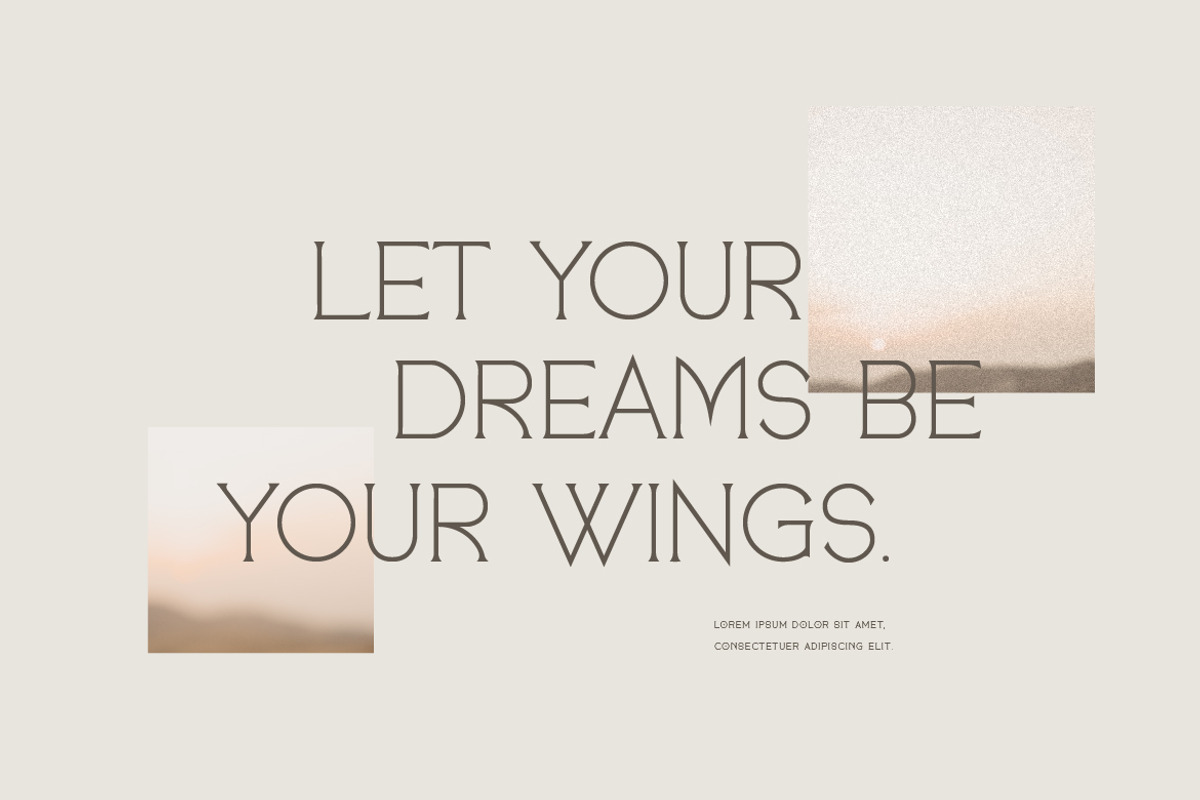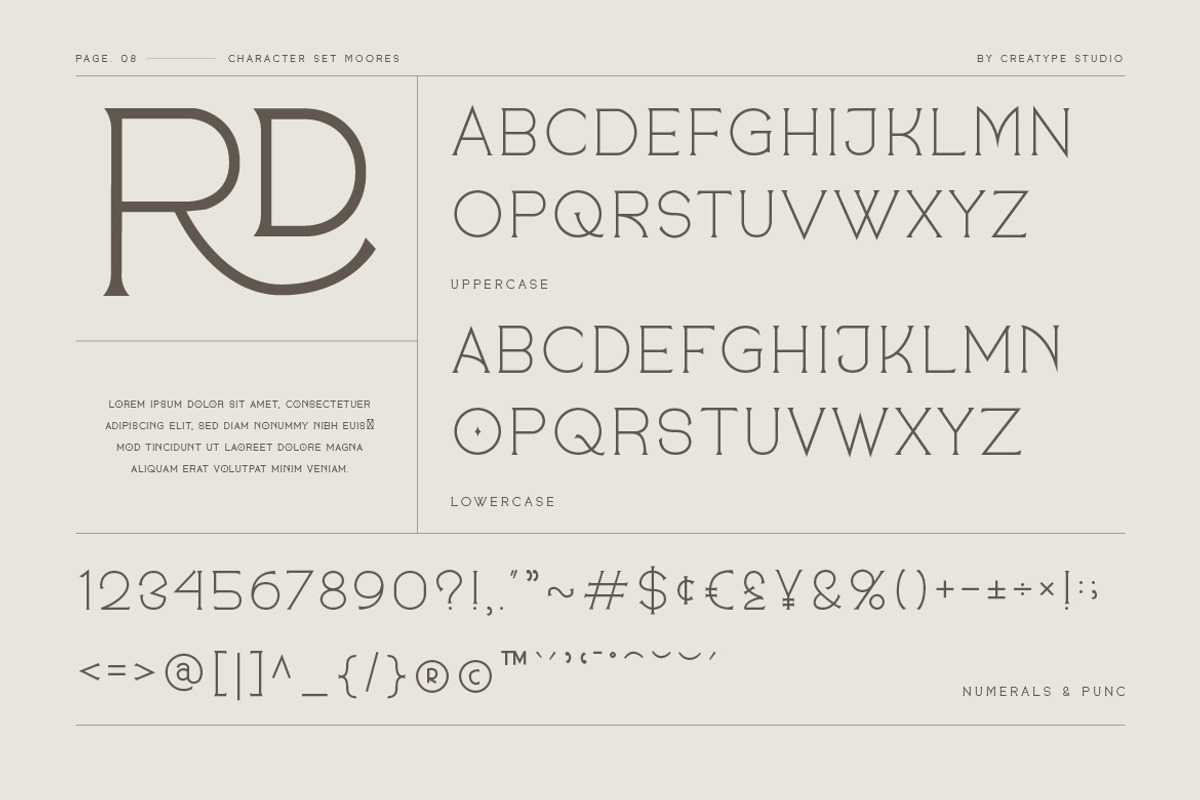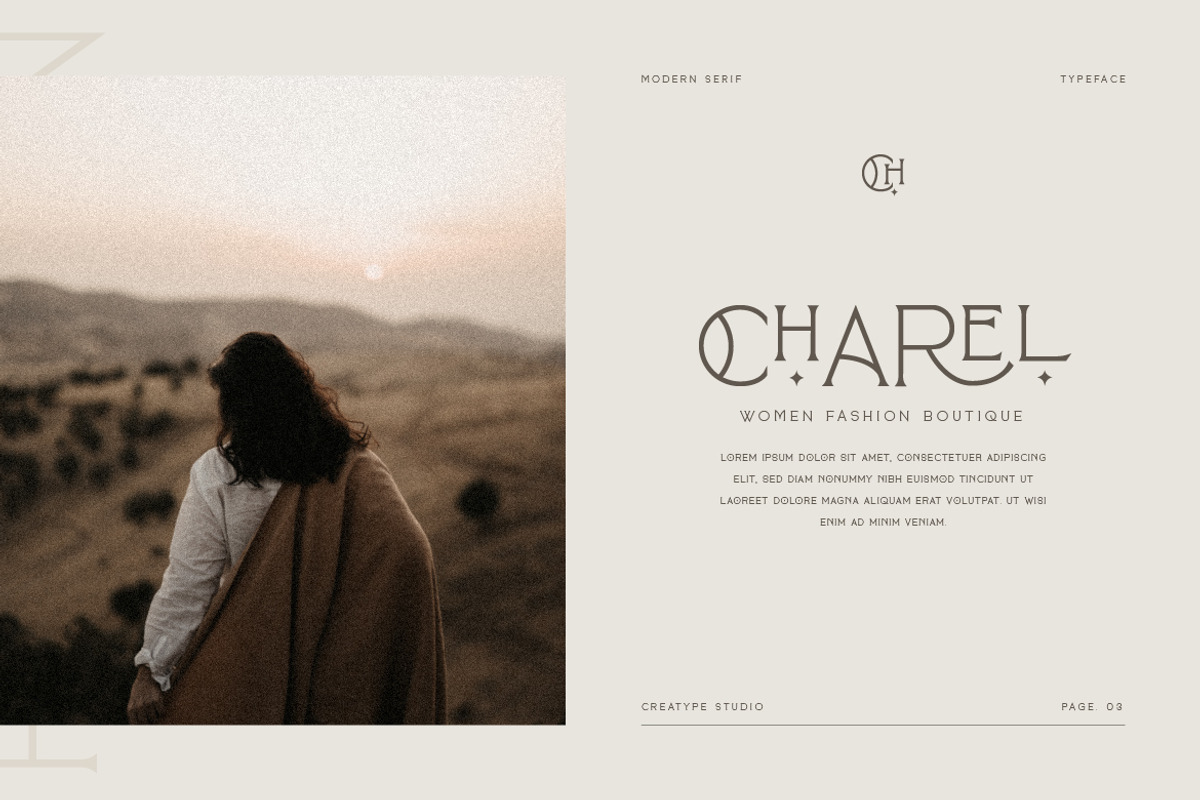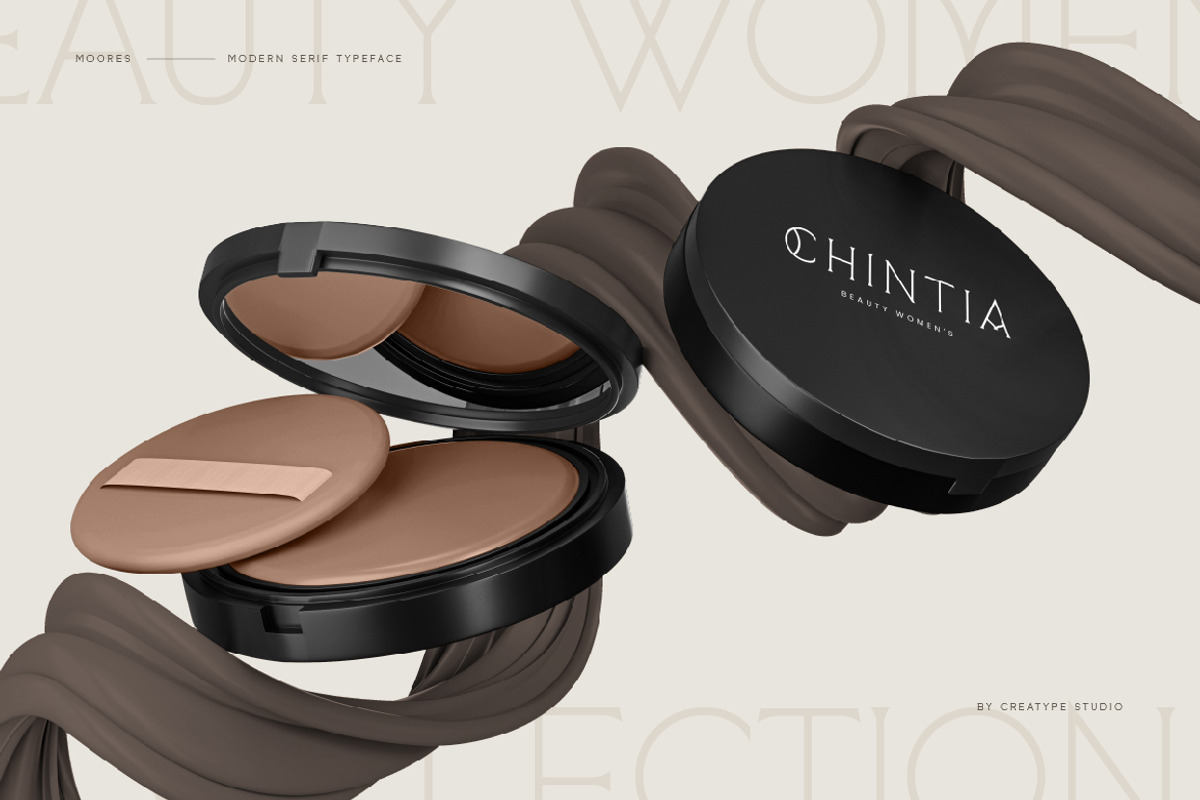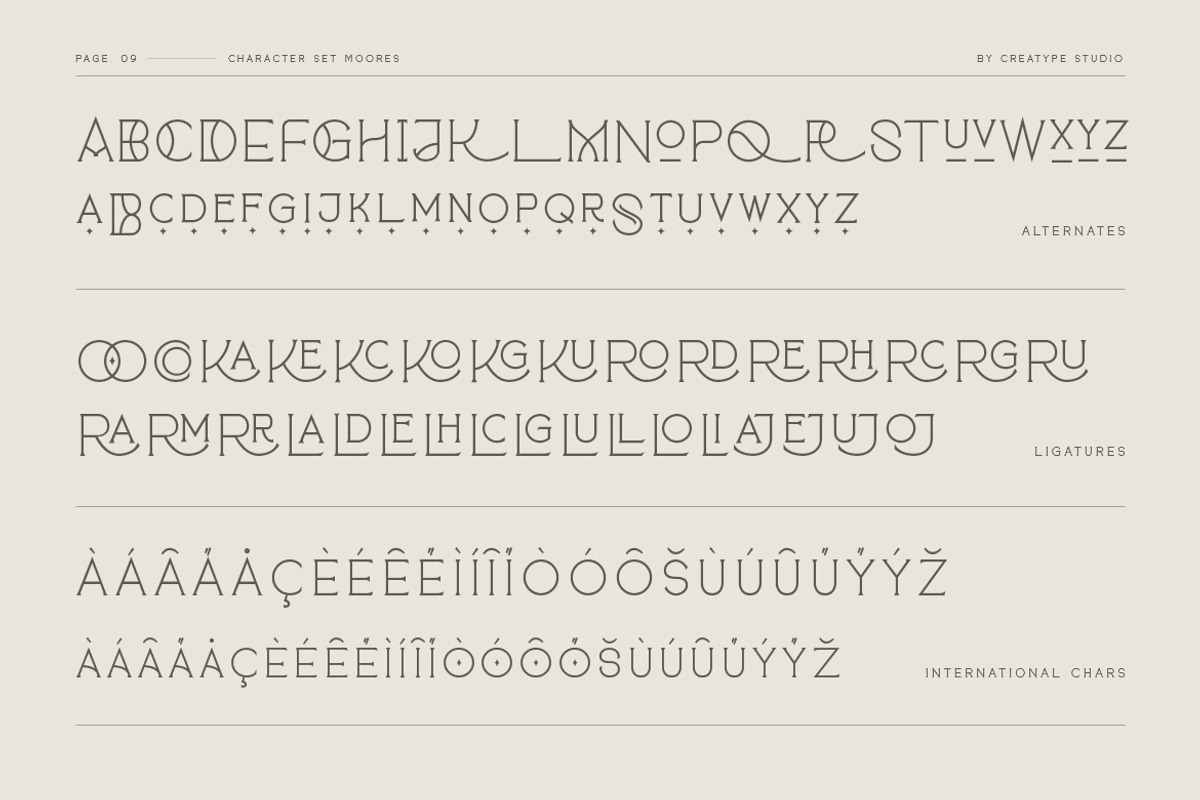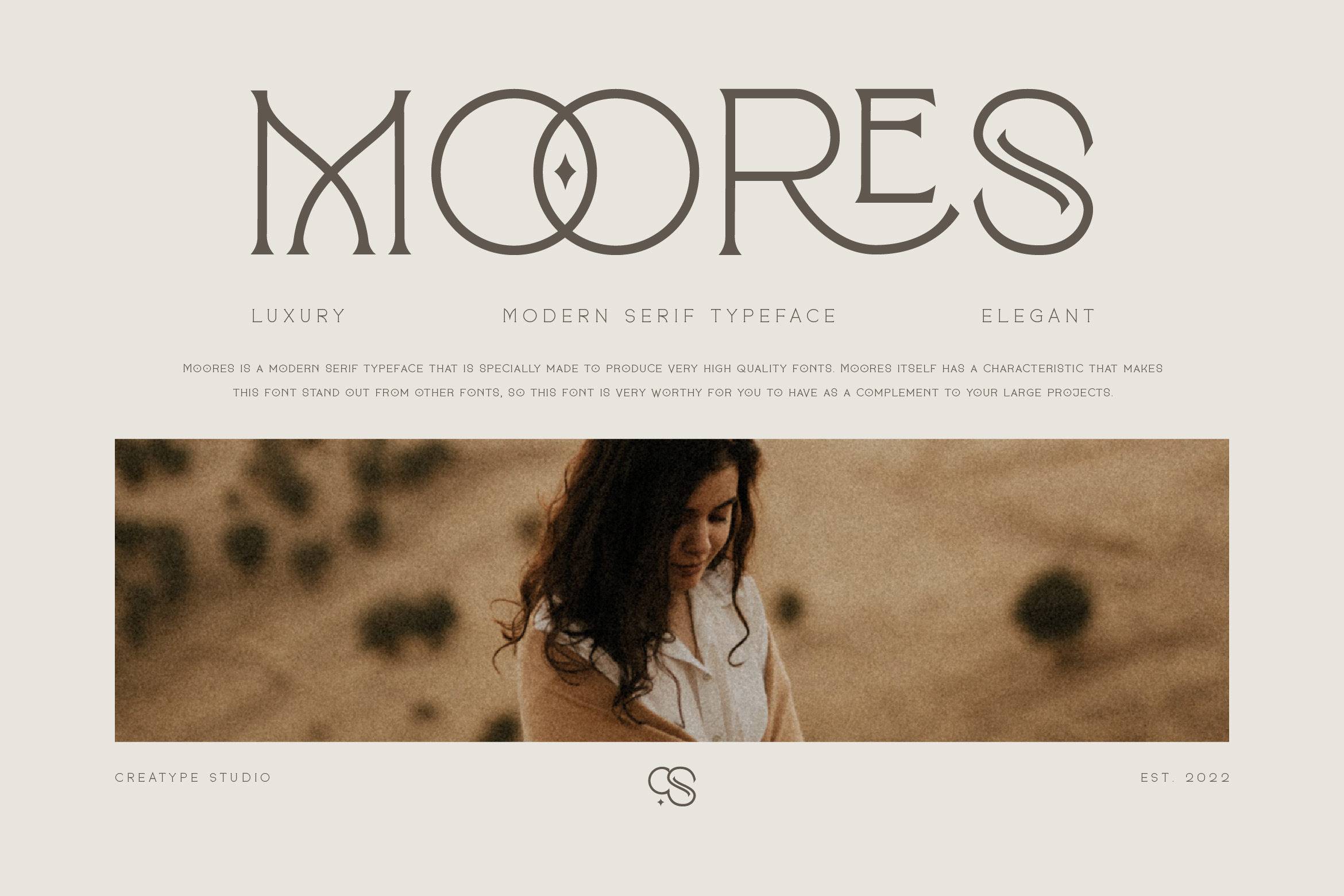
Moores Modern Serif Business Font
Moores is a modern serif as known for its geometric styles. Without losing the geometric style, Moore's typeface still looks stunning. It's feminine with a magical touch to make it more attractive. It suits beauty, fashion, logos, and more.
Moores is perfect for branding projects, logo, wedding designs, social media posts, advertisements, product packaging, product designs, label, photography, watermark, invitation, stationery and any projects that need handwriting taste.
- Ligature & Alternate